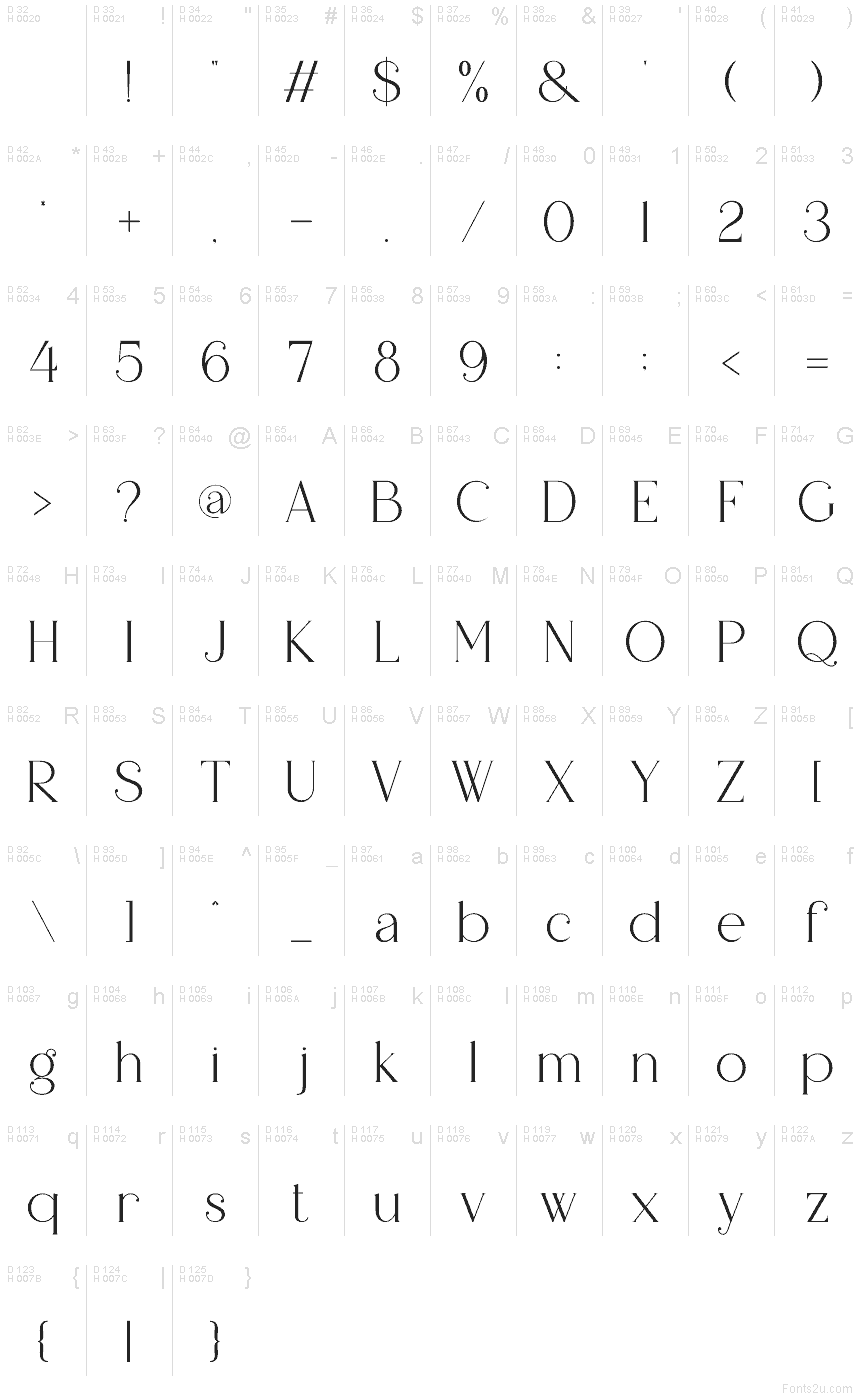
Vakeny
Vakeny font by ErmediaStudio is a free serif display font. Built for spotlight moments, it blends razor-thin hairlines with inky, decisive strokes and long, sweeping curves that feel tailored and luxurious. The letters breathe with wide counters and crisp, knife-edge details, giving headlines that glossy editorial snap without losing warmth.
Using Vakeny, your work shines on fashion branding, boutique logos, magazine mastheads, cosmetic packaging, upscale posters, and social media headlines. This free font loves generous sizes—open up the tracking a touch and let the forms stretch. For body copy or captions, pair it with a quiet, neutral sans to keep the focus on Vakeny’s luxe rhythm while maintaining clarity in the supporting text.